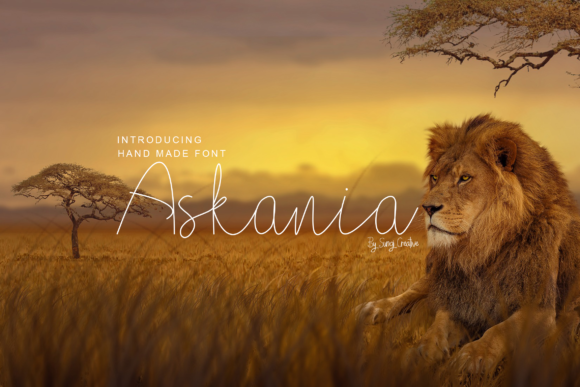
The Charming Askania Font: Adding a Touch of Whimsy to Your Designs
I’ll never forget the time I was working on a project for a client’s children’s book. I had a clear vision of the story’s tone and style, but I just couldn’t find the right font to bring it all together. The font needed to be playful, charming, and easy to read. That’s when I stumbled upon the Askania font. It was love at first sight! 💕
With its unique script and cute feel, Askania instantly added a charming, authentic touch to my design. I knew right then and there that I had to share this gem with fellow designers, crafters, and creative hobbyists. So, let’s dive into the wonderful world of Askania and explore its features, uses, and alternatives.
An Honest Review of Askania Font
What I Love About Askania ✨
- Unique script with a cute, playful feel 🎉
- Easy to read, even in smaller sizes 📚
- Perfect for adding a touch of whimsy to designs 🤔
- Works well for titles, headings, and short paragraphs 📝
- Great for a wide range of design ideas, from kids’ books to branding 🔥
While Askania is an amazing font, it’s not without its quirks. For instance:
- Some letters may not connect as smoothly as you’d like 🤔
- Limited use for body text, as it’s best suited for headings and titles 📝
A Practical Guide to Using Askania Font
The Backstory of Askania Font
Askania was designed by a talented type designer who wanted to create a font that would bring a smile to people’s faces. Inspired by the charm of handwritten scripts, Askania was crafted to be both playful and elegant. While the designer’s exact story is unknown, it’s clear that Askania was created with love and a passion for typography.
| Font Name | Askania Font |
| Author | SungiCreative |
Q: What type of designs is Askania best suited for?
A: Askania is perfect for designs that need a touch of whimsy, such as children’s books, branding, and packaging.
Q: Can I use Askania for body text?
A: While Askania is easy to read, it’s best suited for headings and titles. For body text, consider using a clearer font.
Q: Does Askania have OpenType features?
A: Yes, Askania has a range of OpenType features, including glyphs, stylistic alternates, and ligatures.